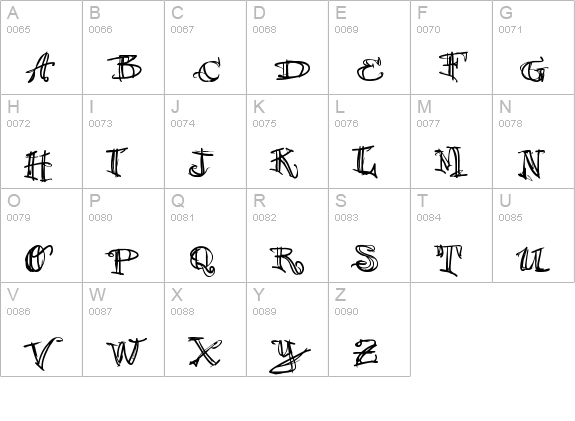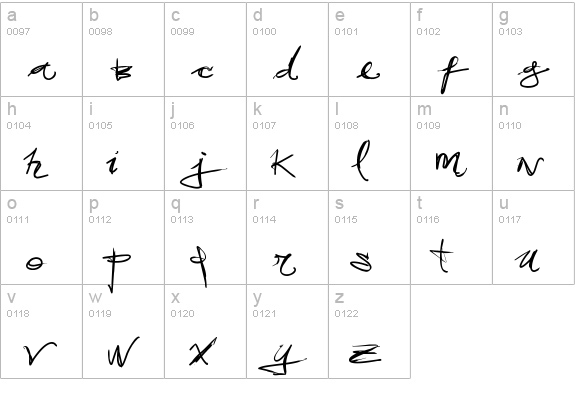
vtks 38 Font Details
VTKS 38 font is a unique and stylish typeface that brings a touch of creativity to your designs. This font features a modern and edgy look, perfect for making a statement in your projects. With its bold and eye-catching characters, VTKS 38 font is sure to grab attention and leave a lasting impression. What's even better is that this font is available for free download at FontsMarket.com, making it easily accessible for all your design needs. Whether you're working on a poster, logo, or any other creative project, VTKS 38 font is a great choice to add a touch of originality and flair. Don't miss out on this fantastic font that combines style and accessibility in one package. Download it now and elevate your designs to the next level!